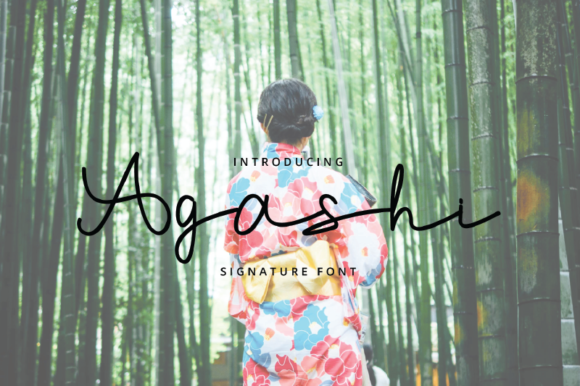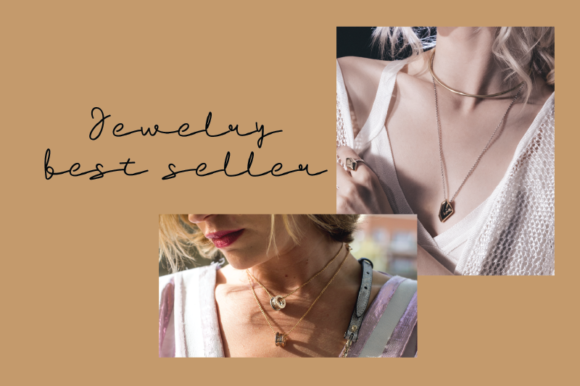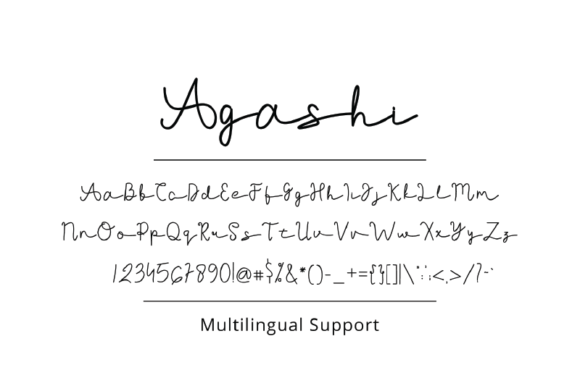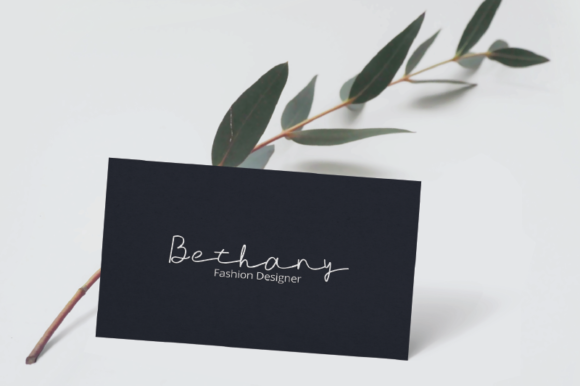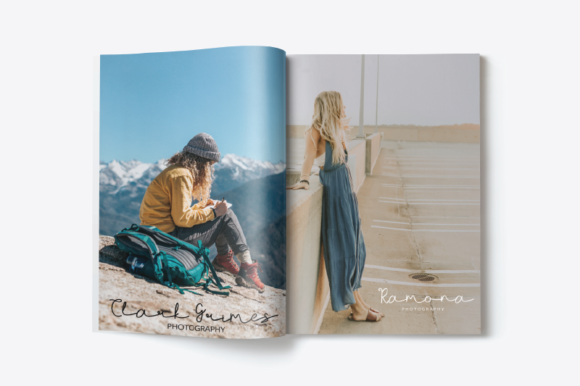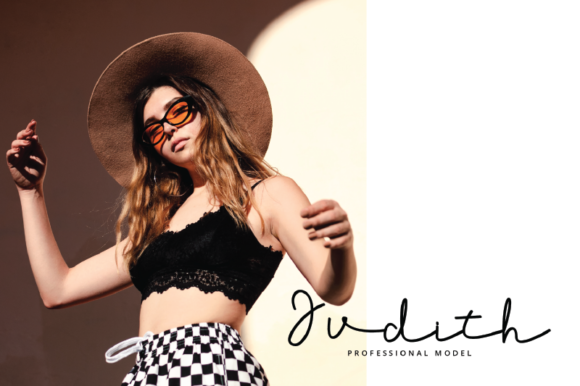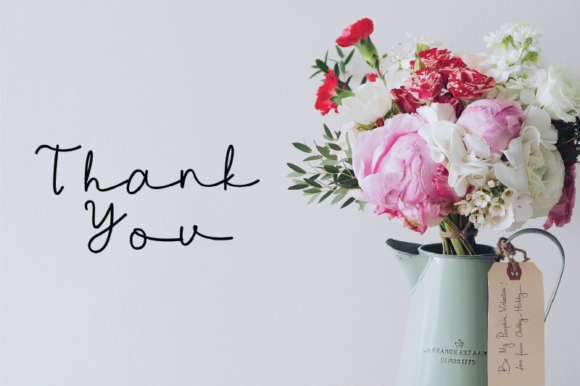
Agashi Font
About Agashi Font
Agashi is a light and charming script font that will take any design idea to the next level. Get inspired by its unique charm!